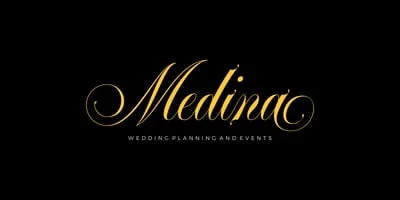
Banda Neira Font
Banda Neira Font is perfect for spice trade branding, Indonesian restaurant menus, tropical resort signage, exotic travel marketing, heritage cultural projects, Southeast Asian cuisine packaging, historical documentary titles, maritime adventure materials, tropical island tourism, and any projects that need distinctive typography with Indonesian heritage and exotic spice trade atmosphere.
What makes Banda Neira Font exciting is its authentic Indonesian character that captures the rich cultural heritage and exotic allure of the legendary Spice Islands with letterforms that evoke ancient trade routes, tropical abundance, and the mystical beauty of Southeast Asian archipelagos. This distinctive typeface features organic characteristics with cultural warmth that reflects the vibrant traditions of Indonesian craftsmanship, creating an atmosphere of exotic adventure and cultural authenticity that transports viewers to distant tropical shores. The font's heritage character makes it perfect for brands seeking to communicate authenticity, cultural richness, and the exotic appeal of Indonesian culture and tropical paradise.
Banda Neira Font family includes cultural style variations featuring light, regular, medium, and bold weights. The font family also offers tropical italic versions with enhanced flowing characteristics, along with decorative alternates that reflect traditional Indonesian design elements. Special features include cultural ornaments, spice symbols, and tropical decorative elements that enhance the authentic Indonesian atmosphere of heritage design applications and exotic branding systems.